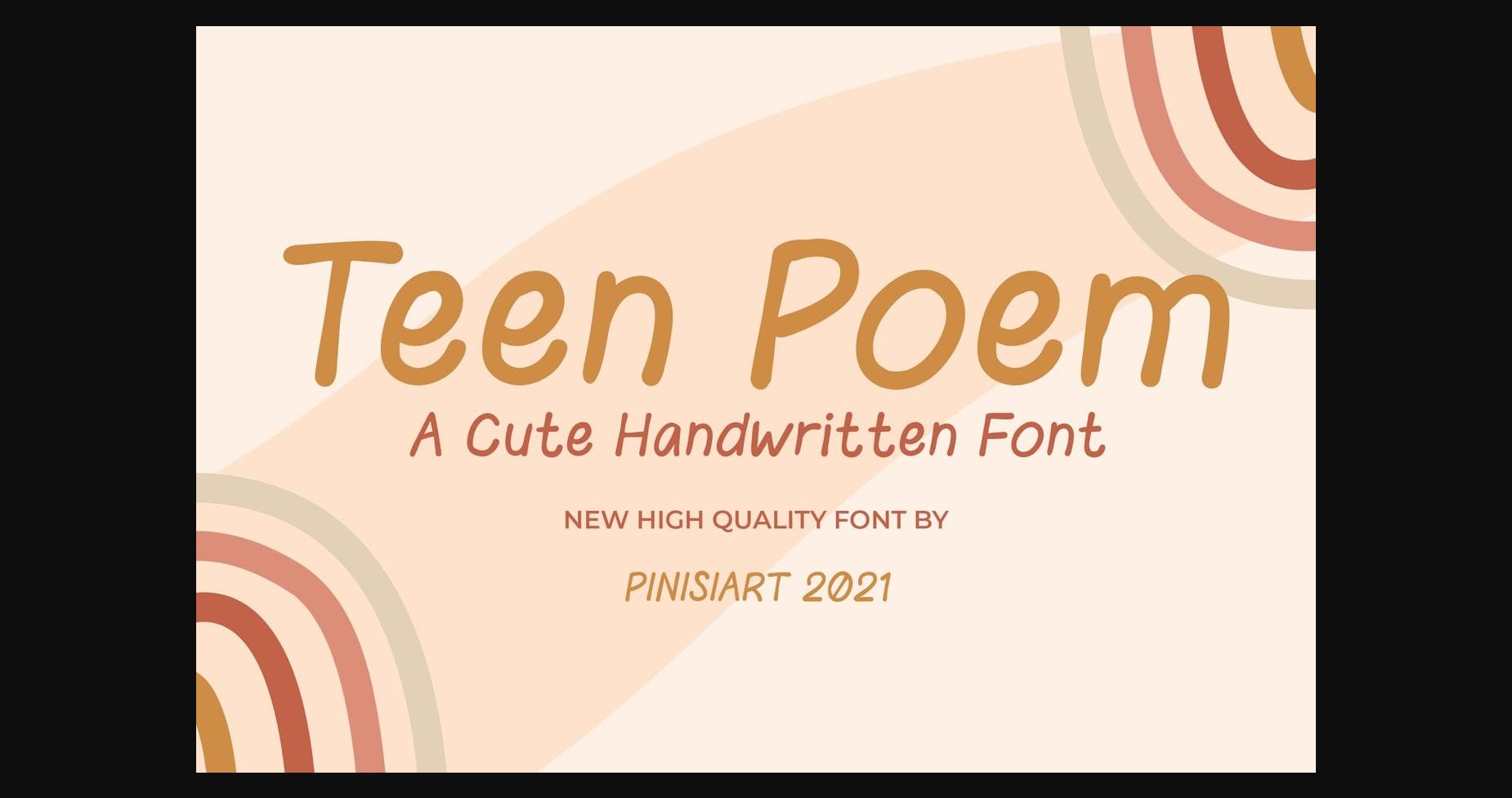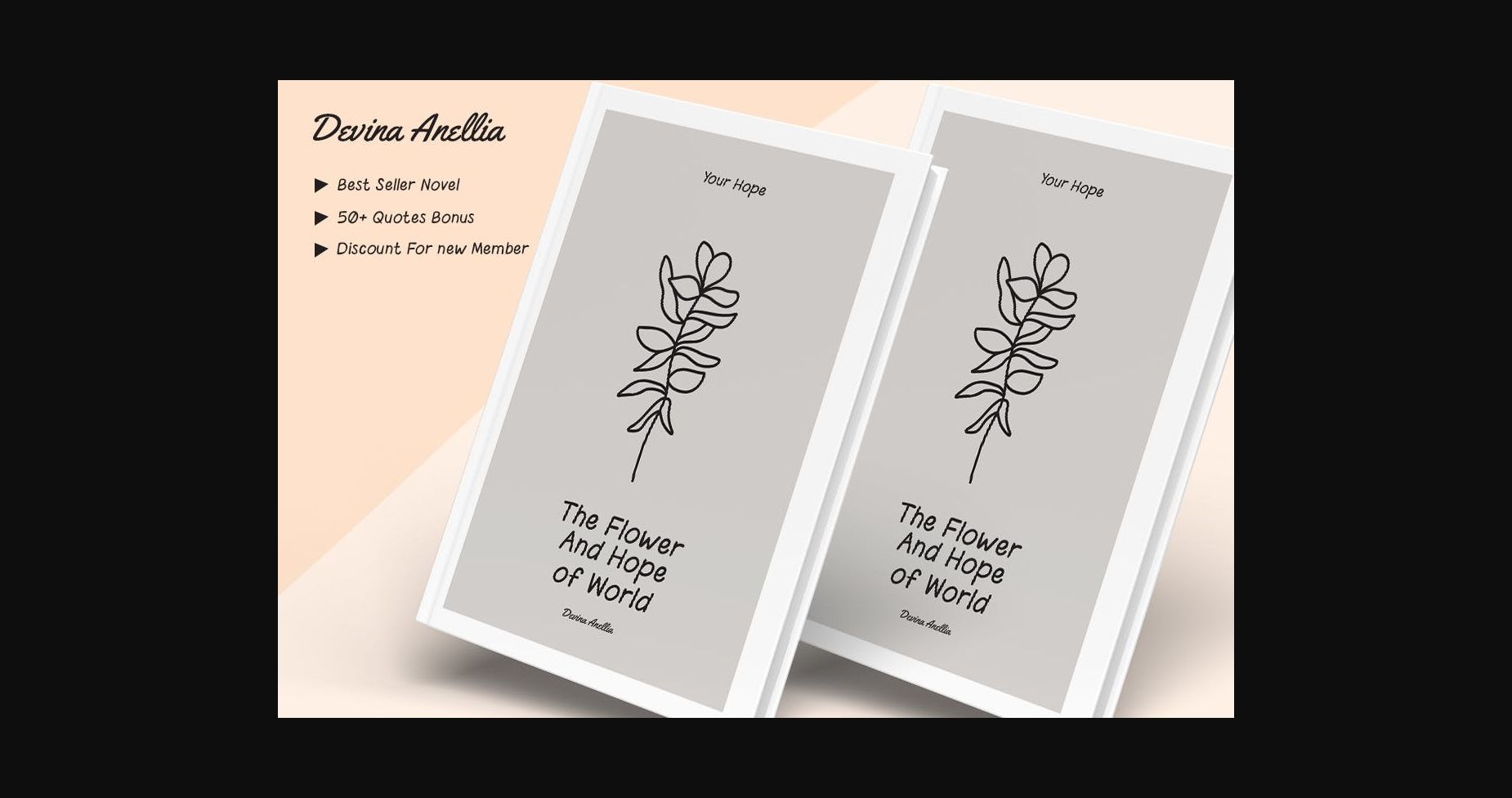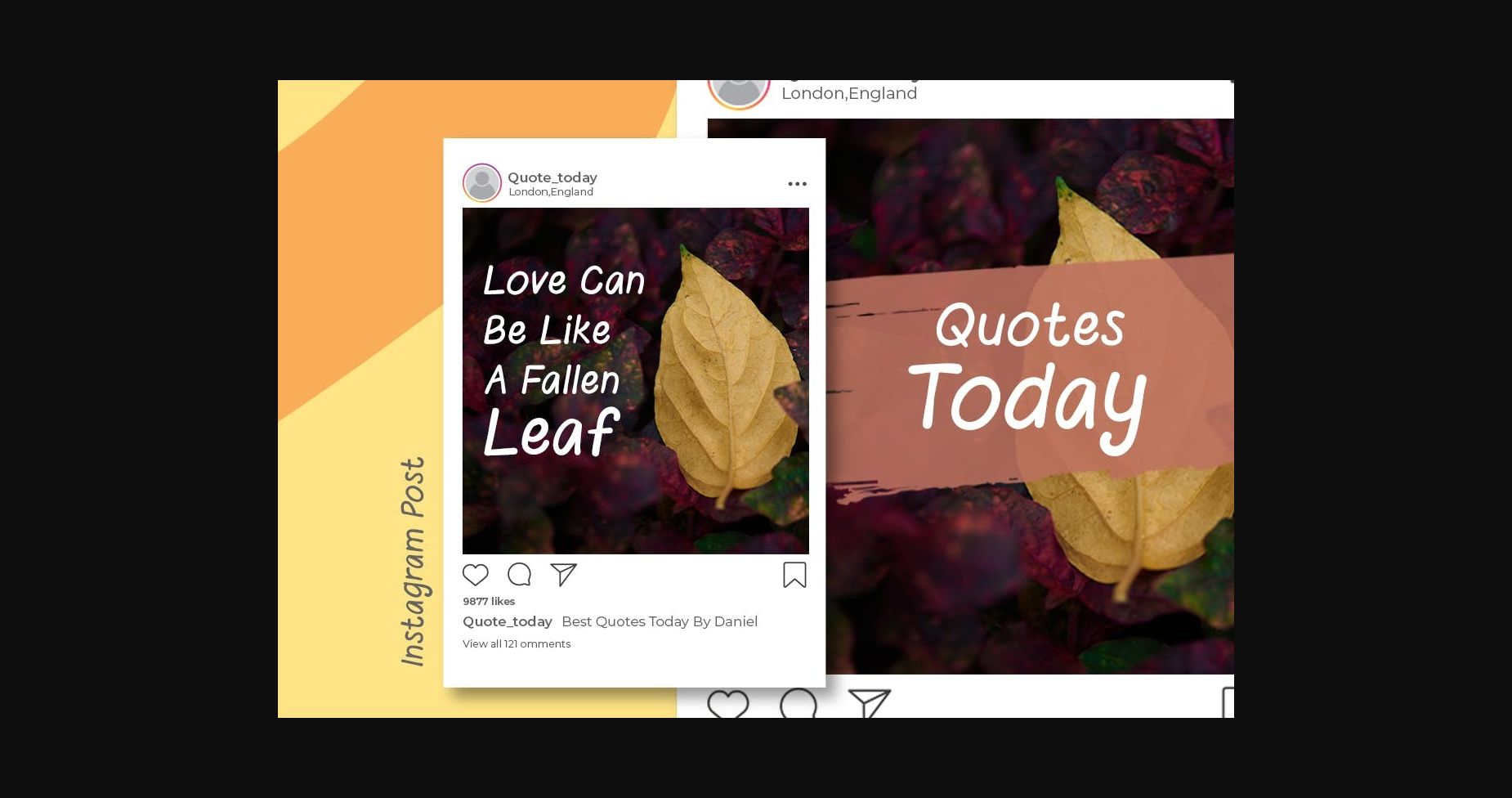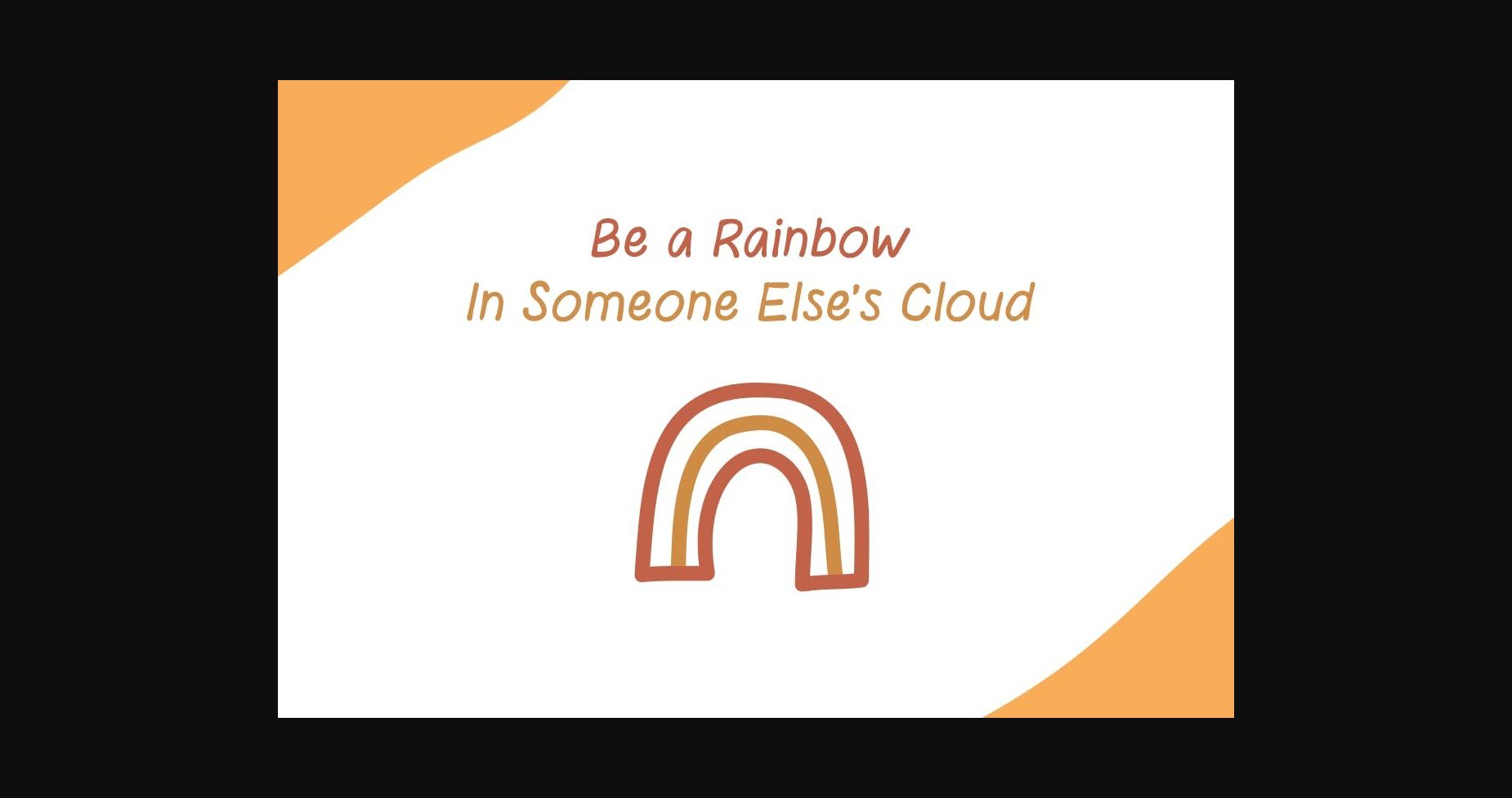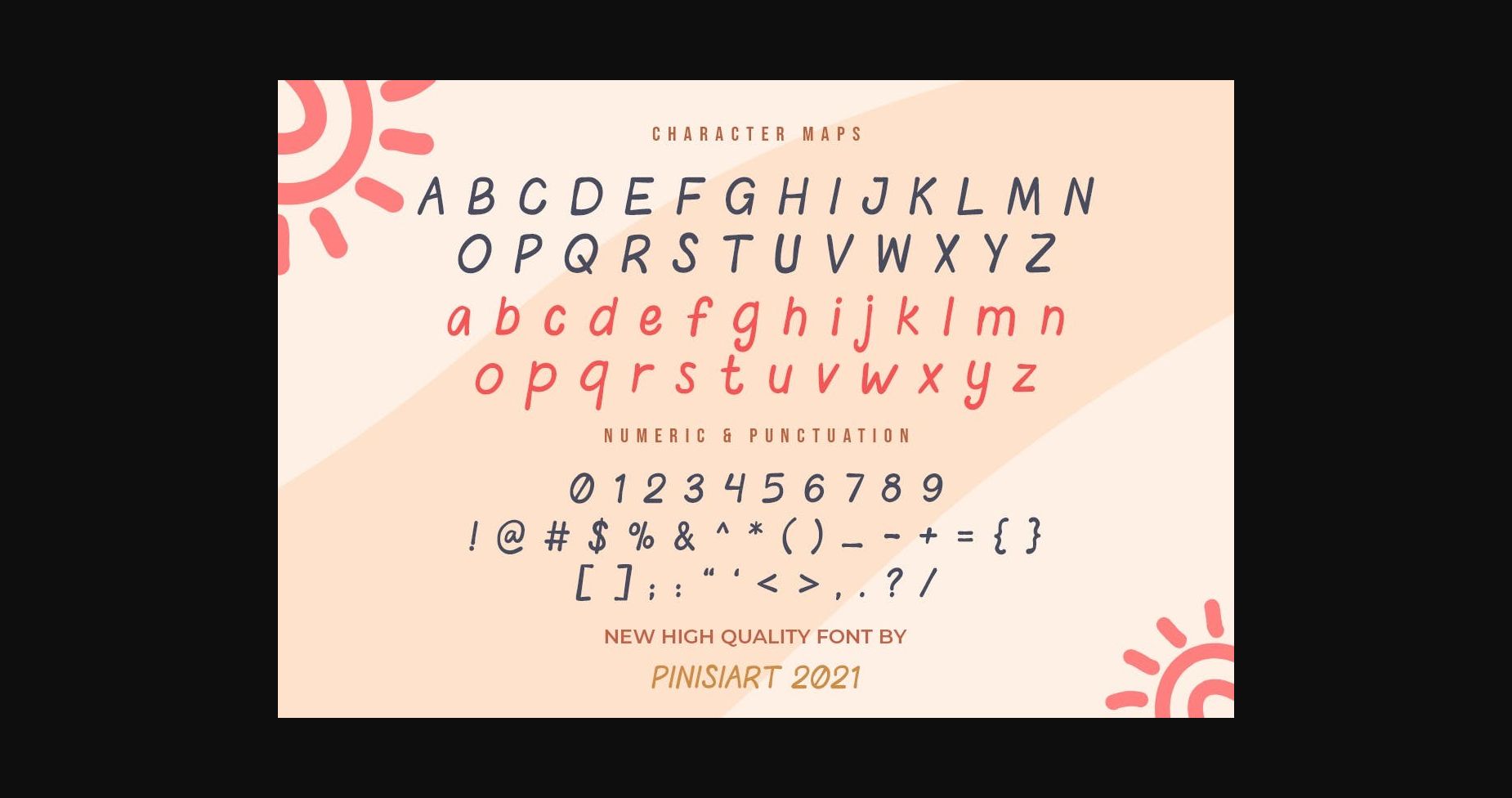
About Teen Poem Font
Teen Poem – Cute sans serif font
The teenage years are the time when it’s all about the feeling. We can all express our inner thought in simple sentences and proudly hang them on the wall as a poster. This Teen Poem is what we all need, the simplicity, the readability – it is just perfect.
Suited perfectly for teenager themes books market, social media quotes, stationary, school supplies font, poster, birthday invitation, youtube covers, youtube thumbnails, social media page covers, and so on.
The teenage years are the time when it’s all about the feeling. We can all express our inner thought in simple sentences and proudly hang them on the wall as a poster. This Teen Poem is what we all need, the simplicity, the readability – it is just perfect.
Suited perfectly for teenager themes books market, social media quotes, stationary, school supplies font, poster, birthday invitation, youtube covers, youtube thumbnails, social media page covers, and so on.